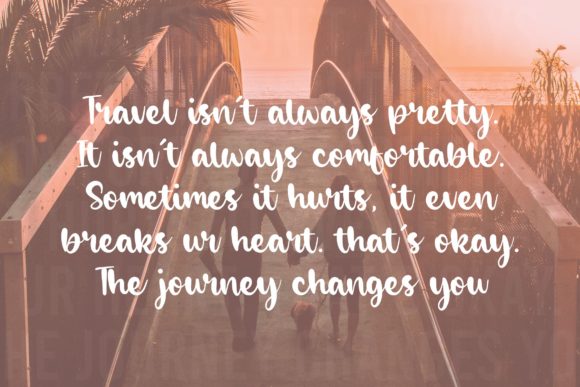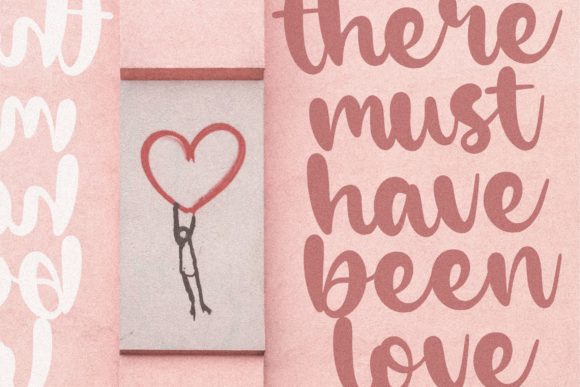
Piglets Font
db-ku.com - Script & Handwritten -- Piglets is a sweet and brushed handwritten font. This gentle font will look gorgeous on a variety of design ideas. It will add a joyful and romantic touch to each of your projects!